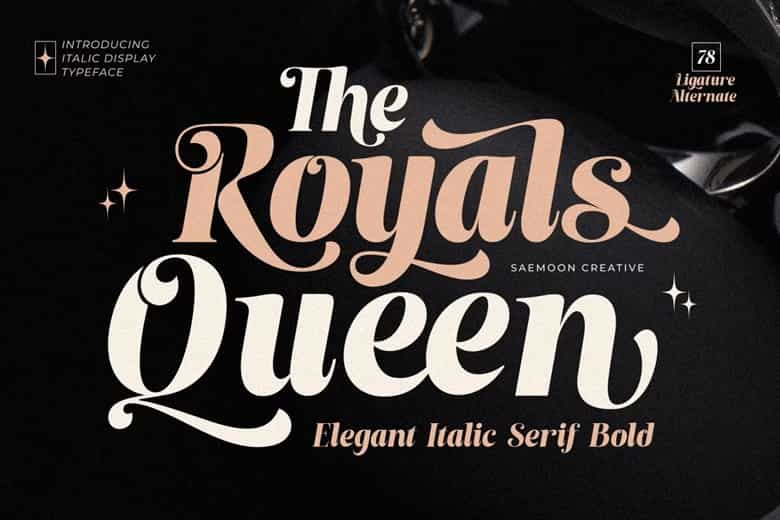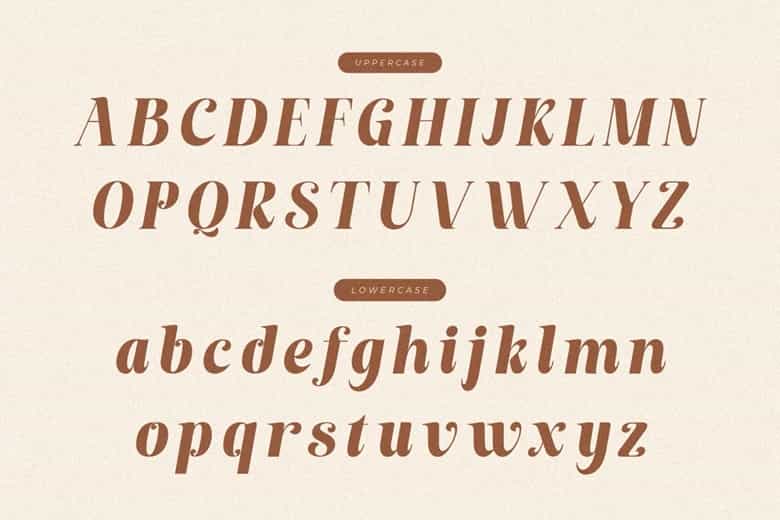
Give your designs a royal touch with The Royals Queen, a luxurious italic serif energetic set of type designed to impress on display. This high end font is a unique blend of timeless elegance and contemporary flamboyance in design, which will suit well in branding, fashion headings, logo designs, wedding papers, editorial designs, etc.